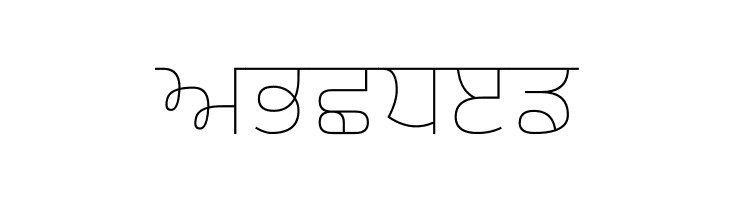
Fictive Kinship Regular Font
- Font: Fictive Kinship Regular
- No. of Characters:: 72
A thin, elegant font with modern and traditional elements, featuring distinctive curves and balanced spacing.